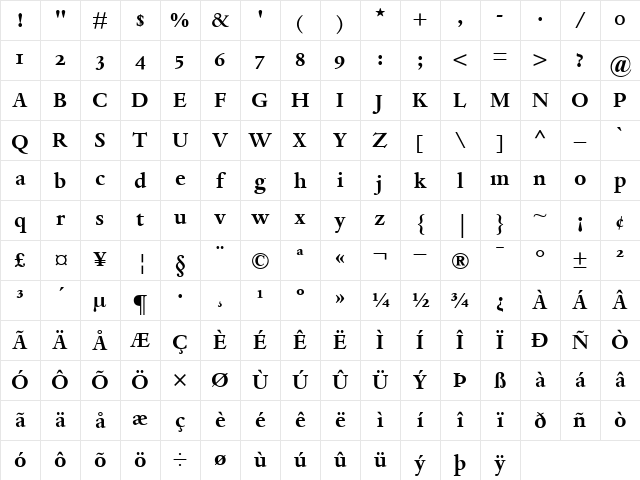
DanteMTOldstyleFigures Bold
Design Context for DanteMTOldstyleFigures
DanteMTOldstyleFigures carries the refined structure of traditional serif typography, with bracketed terminals and considered proportions that communicate credibility and craft. Its bold stroke weight gives it real presence on the page.
Pro Tip: Use DanteMTOldstyleFigures for editorial body copy and considered headline work. Pair with a neutral sans for UI elements or captions to create a classic hierarchy.